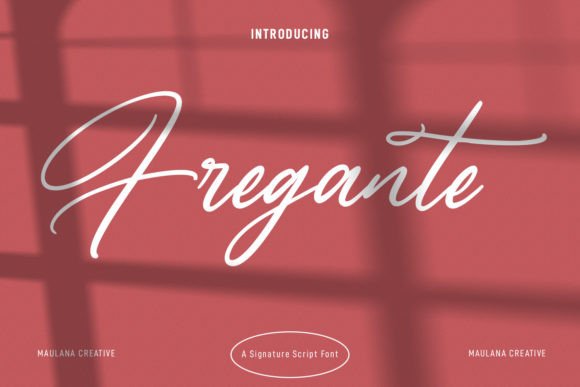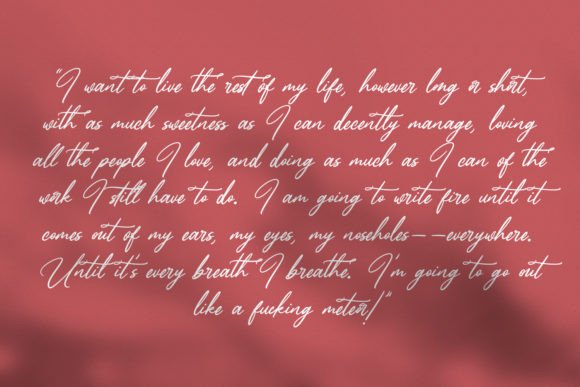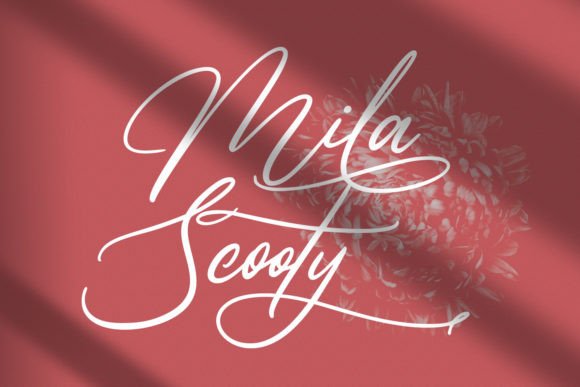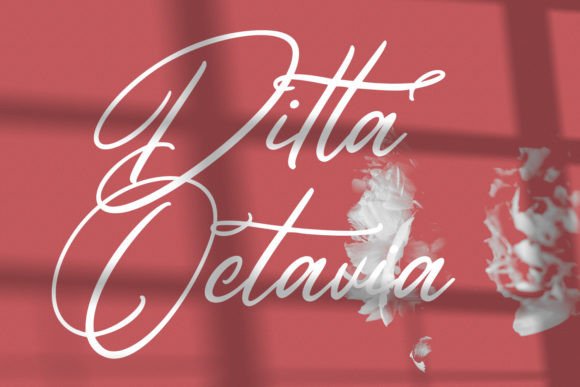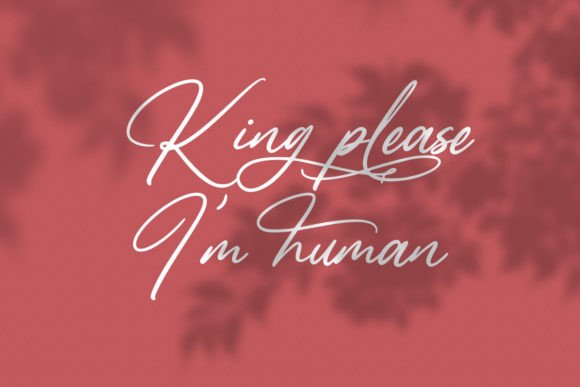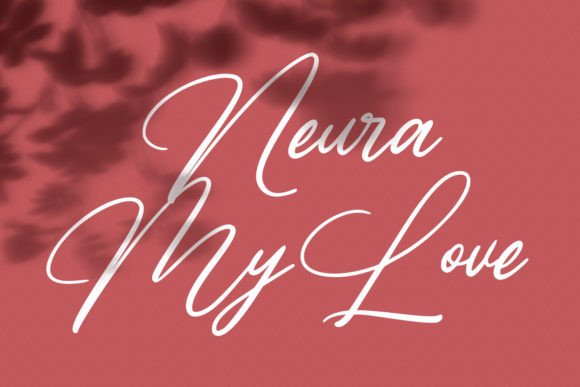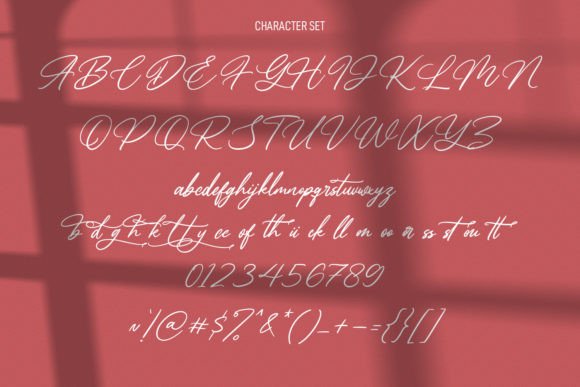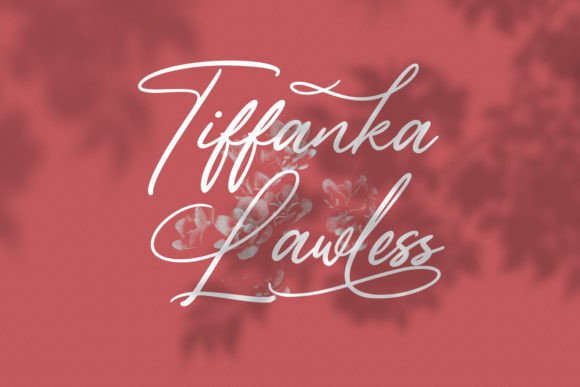
Fregante Font
About Fregante Font
“Fregante” is an expressive signature script font that brings a contemporary and fresh vibe to any design. With its unique and dynamic style, this font is perfect for a wide range of creative projects, adding an expressive touch that makes your designs stand out.
The expressive nature of “Fregante” lies in its signature script, which adds a personal and handcrafted quality to your creations. Whether you’re working on branding, invitations, digital graphics, or any other design project, this font injects a sense of personality and flair.
Imagine “Fregante” gracing a brand’s logo, where its expressive signature script creates a distinctive and memorable identity. Picture it on invitations, adding a touch of contemporary elegance to event details. Envision this font in digital graphics, enhancing the visual appeal of social media posts or websites.
The contemporary and fresh aesthetic of “Fregante” makes it a versatile choice for designers seeking a font that resonates with modern design sensibilities. It is a valuable addition to your creative toolkit, allowing you to make your projects outstanding and memorable.
Whether you’re a graphic designer working on diverse projects or an individual looking to add a contemporary and expressive touch to your creations, “Fregante” invites you to infuse your designs with its unique energy. Let this font be the key element that elevates your creative endeavors and makes them truly outstanding.